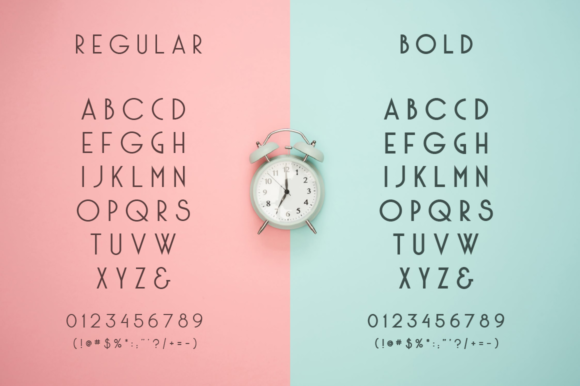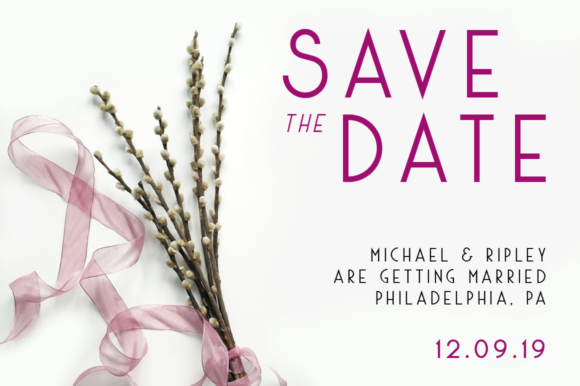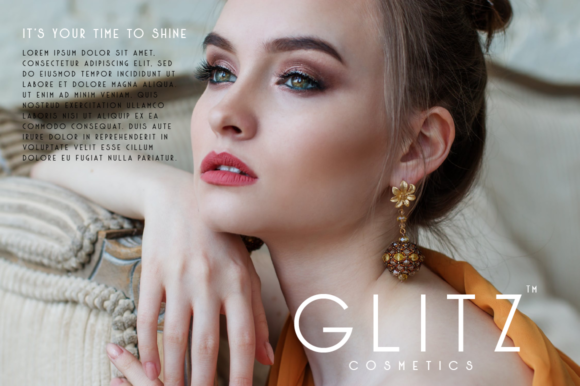
Introduction to Sauvage Font
Have you ever been working on a creative project, pouring your heart and soul into it, only to realize that the perfect font is missing? You search far and wide, scrolling through countless design resources, but nothing seems to match the vision in your mind. This is where the Sauvage Font comes in – a luxurious sans serif typeface that adds a touch of elegance to any project.
Named after the renowned French architect Henri Sauvage, this font embodies the perfect blend of timeless sophistication and modern style. Whether you’re designing a beautiful wedding invitation, a glamorous logo, or a magazine heading, the Sauvage Font is sure to elevate your creative project to the next level. With its high-quality design and transparent background, this font is a valuable resource for any designer looking to take their work to new heights.
- High-quality font design, perfect for creative projects requiring a unique touch.
- Includes multiple font styles, including bold, italic, and regular, to cater to diverse design needs.
- Perfect for use in logos, typography-based designs, and other creative projects where a distinctive font is required.
Honest Review: Sauvage Font
I recently had the chance to work with the Sauvage Font, and I must say it’s been a game-changer for my design projects. This free download has been a valuable addition to my design resource collection, offering a unique and high-quality touch to my creative endeavors.
Here’s what works well:
- ✨ Unique and elegant design that stands out from the crowd
- ✨ Available in multiple weights and styles, providing versatility for various design projects
- ✨ Can be easily paired with other fonts to create a cohesive and visually appealing design
However, I do have a few limitations to mention:
- ⚠️ May not be suitable for projects requiring a bold, edgy feel, as it’s more geared towards elegant and refined designs
Overall, I’m thoroughly impressed with the Sauvage Font. Its high quality and unique design make it a valuable addition to any design resource collection. If you’re looking to elevate your creative projects with a touch of elegance, I highly recommend giving it a try.
The Sauvage Font is perfect for creative projects such as branding, marketing materials, and social media graphics. Its unique design makes it ideal for modern and high-quality designs requiring a touch of sophistication and elegance.
Yes, Sauvage Font is a high-quality design resource that’s carefully crafted to provide a unique and stylish look for your creative projects. The font features a clean and modern design, making it suitable for a wide range of design applications, from branding and advertising to digital products and print materials.